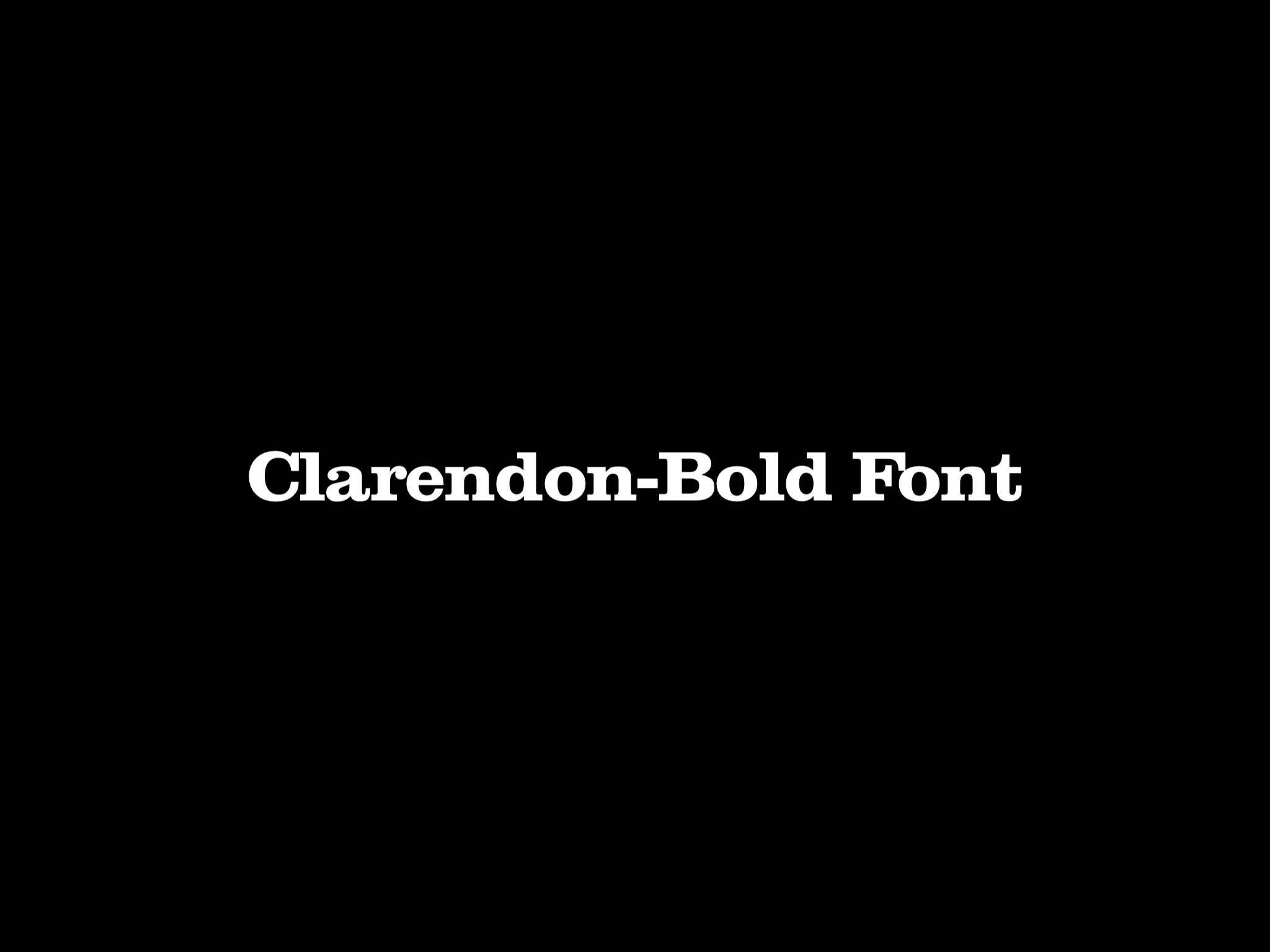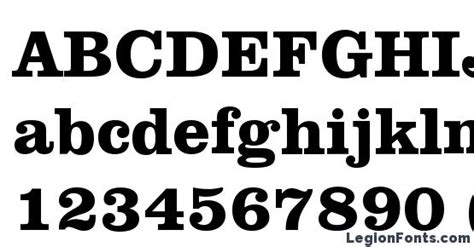
Clarendon Bold Font - Discover the free clarendon bold font at free font download ! Bold serif font with strong slab serifs and a classic appearance. Explore clarendon text designed by patrick griffin at adobe fonts. This font features bold, strong serifs with a classic and robust appearance. This font features bold, thick strokes with a strong. Installable on pc, mac, linux, ios, and android platforms. A slab serif typeface with 4 styles, available from adobe fonts for sync and web. Clarendon bold is a classic slab serif font that exudes a sense of strength, modernity, and timeless elegance.
A slab serif typeface with 4 styles, available from adobe fonts for sync and web. This font features bold, strong serifs with a classic and robust appearance. Explore clarendon text designed by patrick griffin at adobe fonts. Bold serif font with strong slab serifs and a classic appearance. Installable on pc, mac, linux, ios, and android platforms. Discover the free clarendon bold font at free font download ! This font features bold, thick strokes with a strong. Clarendon bold is a classic slab serif font that exudes a sense of strength, modernity, and timeless elegance.
Bold serif font with strong slab serifs and a classic appearance. This font features bold, thick strokes with a strong. Clarendon bold is a classic slab serif font that exudes a sense of strength, modernity, and timeless elegance. Installable on pc, mac, linux, ios, and android platforms. Discover the free clarendon bold font at free font download ! Explore clarendon text designed by patrick griffin at adobe fonts. This font features bold, strong serifs with a classic and robust appearance. A slab serif typeface with 4 styles, available from adobe fonts for sync and web.
Bold serif font with strong slab serifs and a classic appearance. Clarendon bold is a classic slab serif font that exudes a sense of strength, modernity, and timeless elegance. This font features bold, thick strokes with a strong. Explore clarendon text designed by patrick griffin at adobe fonts. A slab serif typeface with 4 styles, available from adobe fonts for.
Explore clarendon text designed by patrick griffin at adobe fonts. Clarendon bold is a classic slab serif font that exudes a sense of strength, modernity, and timeless elegance. This font features bold, thick strokes with a strong. Bold serif font with strong slab serifs and a classic appearance. This font features bold, strong serifs with a classic and robust appearance.
This font features bold, strong serifs with a classic and robust appearance. Clarendon bold is a classic slab serif font that exudes a sense of strength, modernity, and timeless elegance. Discover the free clarendon bold font at free font download ! Installable on pc, mac, linux, ios, and android platforms. This font features bold, thick strokes with a strong.
This font features bold, strong serifs with a classic and robust appearance. Installable on pc, mac, linux, ios, and android platforms. Discover the free clarendon bold font at free font download ! A slab serif typeface with 4 styles, available from adobe fonts for sync and web. This font features bold, thick strokes with a strong.
This font features bold, thick strokes with a strong. Discover the free clarendon bold font at free font download ! Installable on pc, mac, linux, ios, and android platforms. Bold serif font with strong slab serifs and a classic appearance. A slab serif typeface with 4 styles, available from adobe fonts for sync and web.
Bold serif font with strong slab serifs and a classic appearance. This font features bold, strong serifs with a classic and robust appearance. Explore clarendon text designed by patrick griffin at adobe fonts. This font features bold, thick strokes with a strong. Installable on pc, mac, linux, ios, and android platforms.
A slab serif typeface with 4 styles, available from adobe fonts for sync and web. Installable on pc, mac, linux, ios, and android platforms. Clarendon bold is a classic slab serif font that exudes a sense of strength, modernity, and timeless elegance. Discover the free clarendon bold font at free font download ! Bold serif font with strong slab serifs.
Clarendon bold is a classic slab serif font that exudes a sense of strength, modernity, and timeless elegance. A slab serif typeface with 4 styles, available from adobe fonts for sync and web. This font features bold, thick strokes with a strong. Bold serif font with strong slab serifs and a classic appearance. Explore clarendon text designed by patrick griffin.
Discover the free clarendon bold font at free font download ! Explore clarendon text designed by patrick griffin at adobe fonts. This font features bold, strong serifs with a classic and robust appearance. A slab serif typeface with 4 styles, available from adobe fonts for sync and web. Installable on pc, mac, linux, ios, and android platforms.
A slab serif typeface with 4 styles, available from adobe fonts for sync and web. Discover the free clarendon bold font at free font download ! This font features bold, strong serifs with a classic and robust appearance. Explore clarendon text designed by patrick griffin at adobe fonts.
This Font Features Bold, Thick Strokes With A Strong.
Clarendon bold is a classic slab serif font that exudes a sense of strength, modernity, and timeless elegance. Bold serif font with strong slab serifs and a classic appearance.